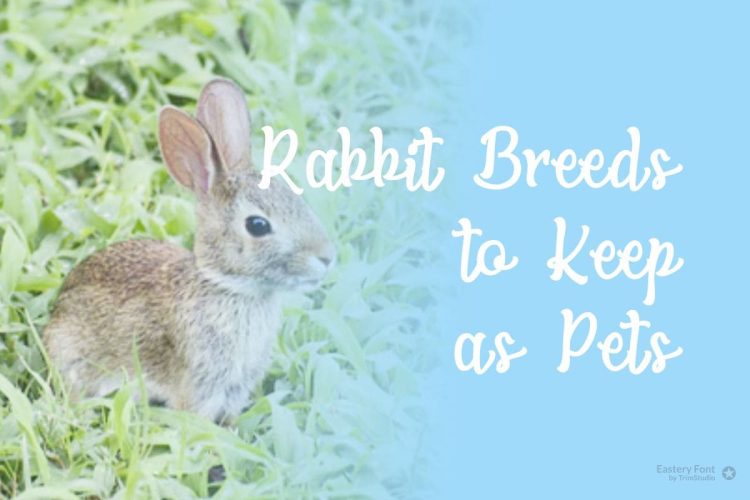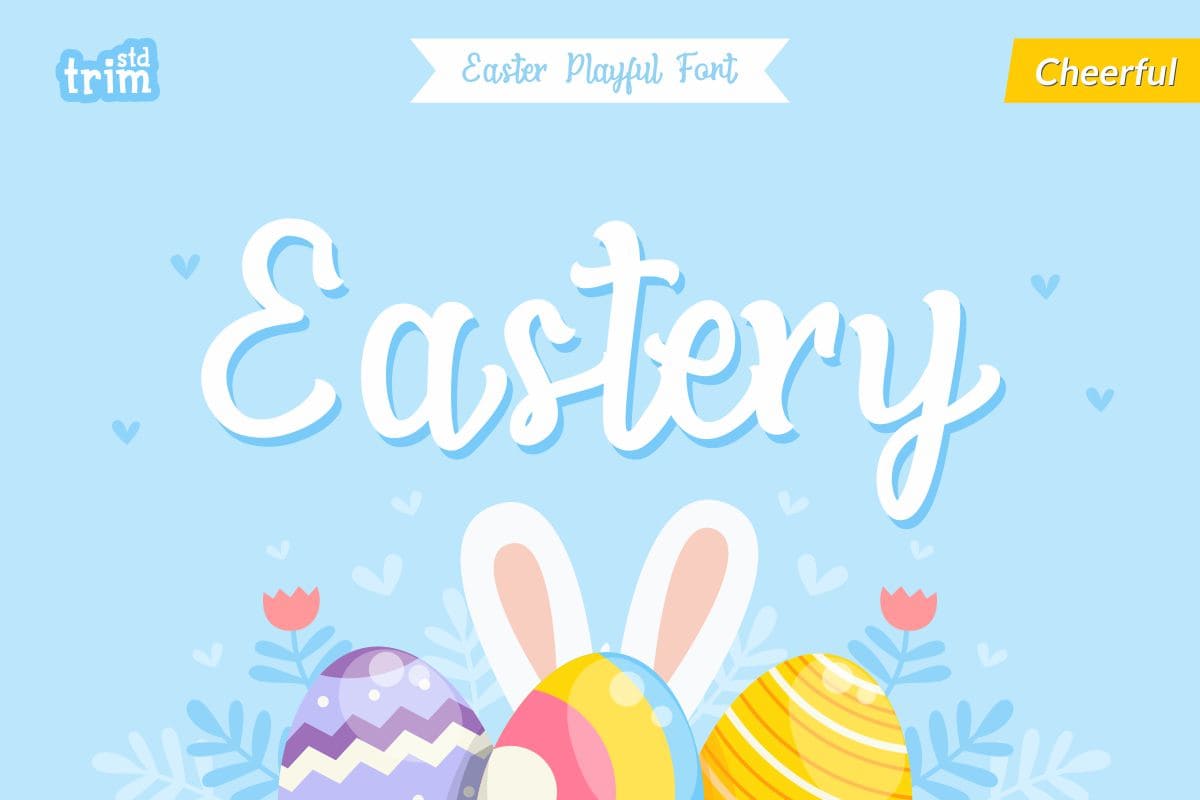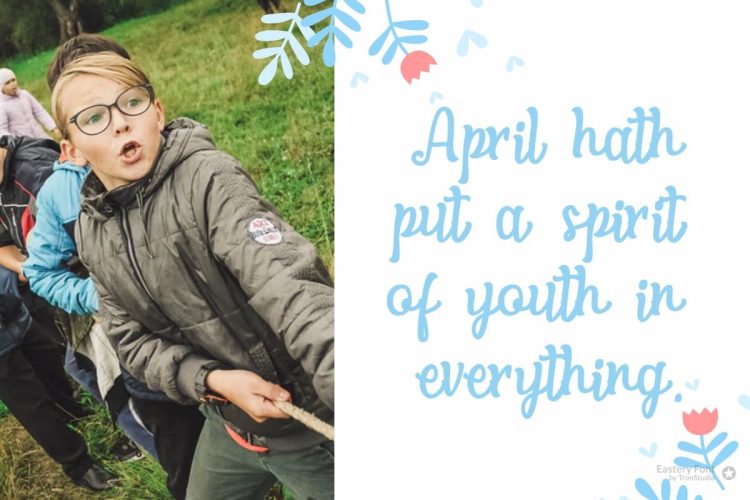
Eastery is an incredibly quirky and cute script font that will take any Easter-themed crafts to the next level!Trimstd is amazing
Eastery – Easter Playful Font